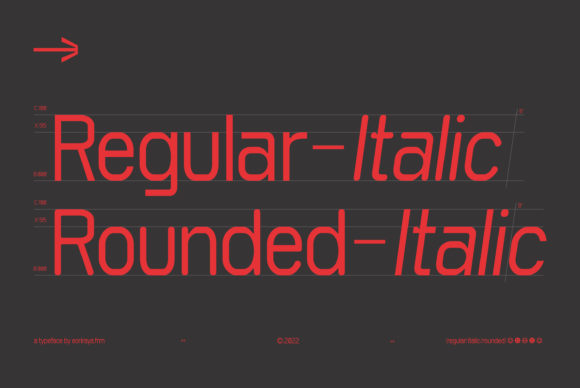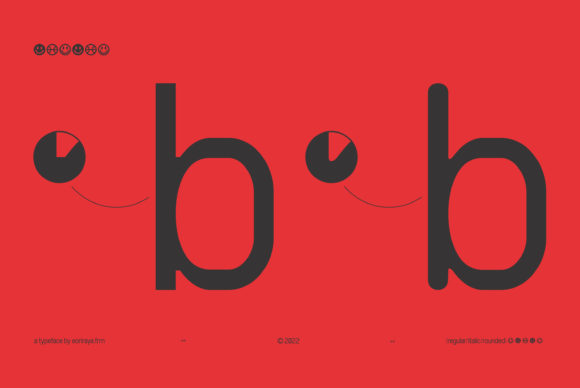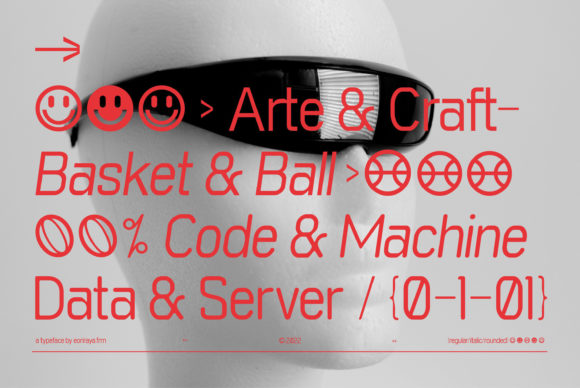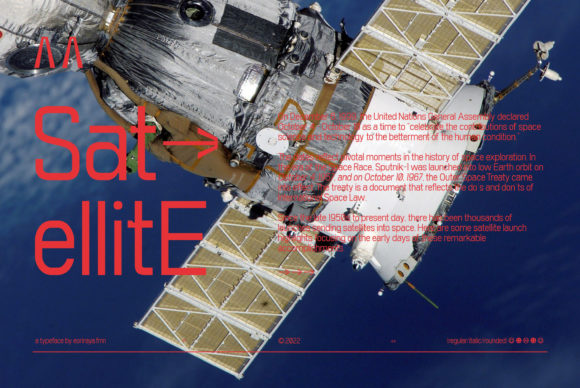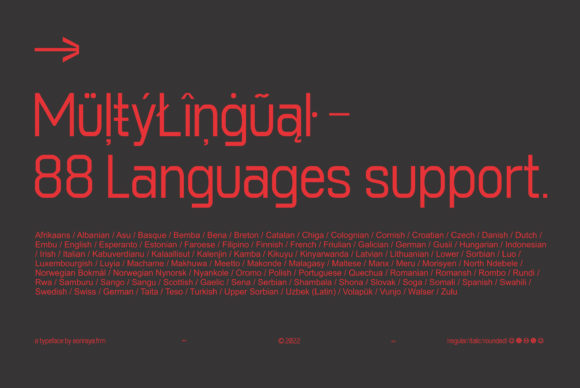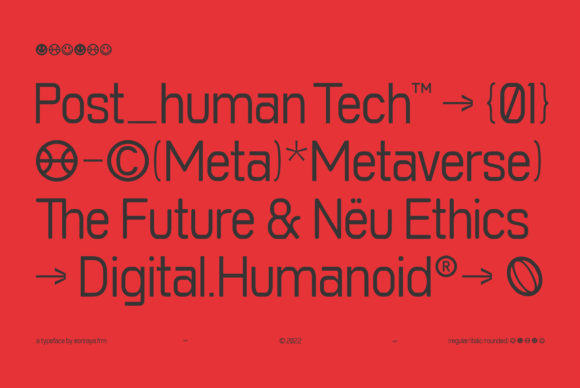
Introduction to Nffinitage Font
Nffinitage is a cool and modern looking sans serif font, designed with the help of geometric shapes.
Add this font to each of your favorite creations that could benefit from a futuristic vibe .
Key Features of Nffinitage Font